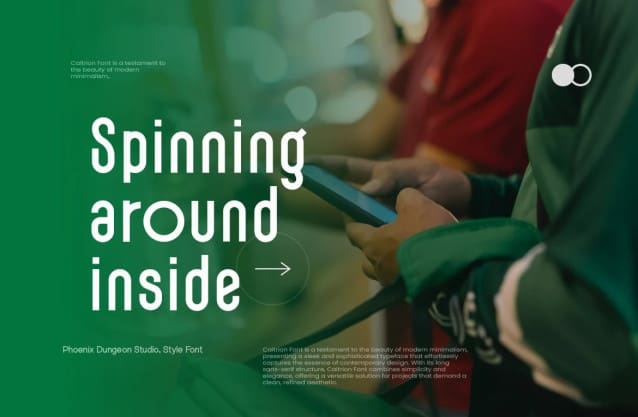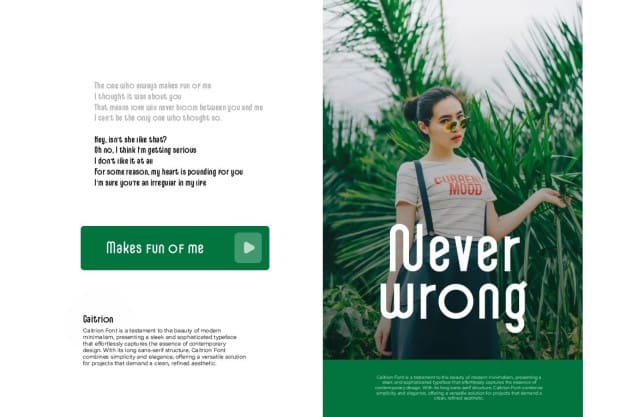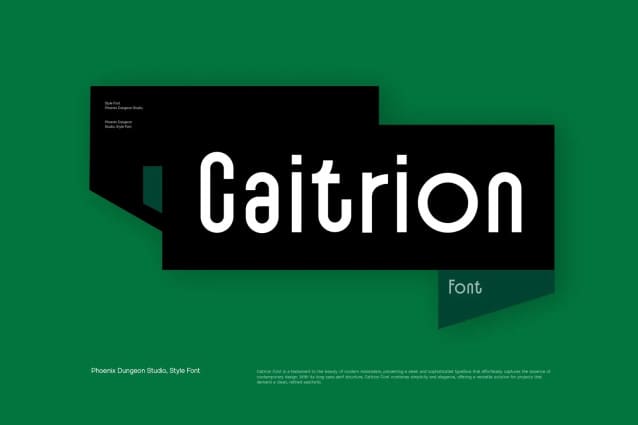
Caitrion Font
Caitrion Font is a minimalist sans-serif font that epitomizes modern sophistication and contemporary design. Its clean, geometric letterforms and subtle details create a streamlined, elegant look, making it ideal for a wide range of applications, from branding and editorial to digital interfaces. The font’s crisp lines and balanced proportions offer both readability and style, providing a polished, refined appearance without unnecessary embellishments. Caitrion’s minimalist approach ensures a timeless and versatile aesthetic, perfect for projects that seek to convey modernity and clarity with understated elegance.